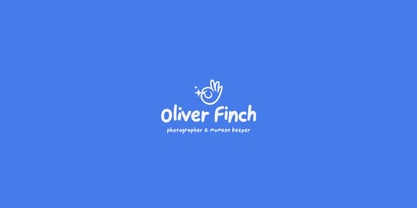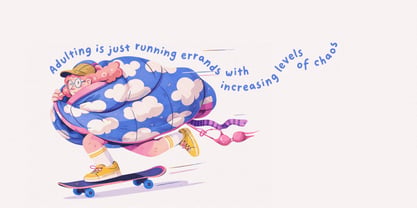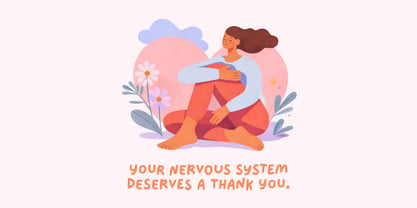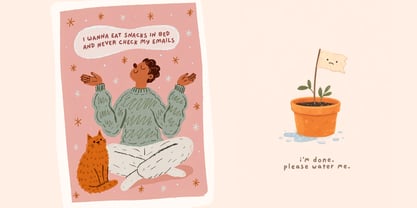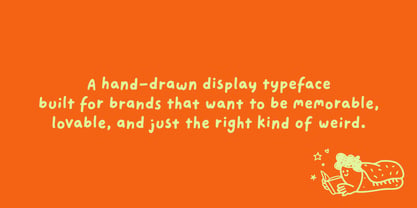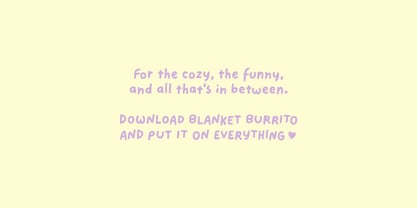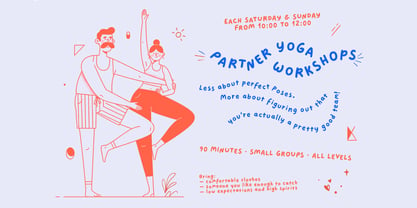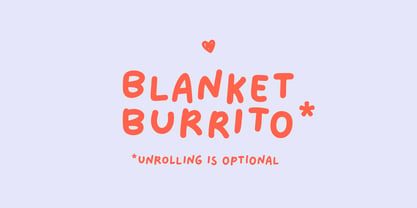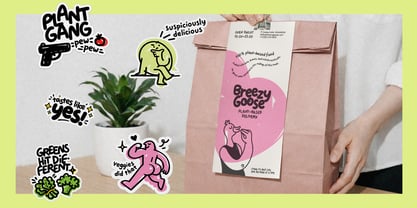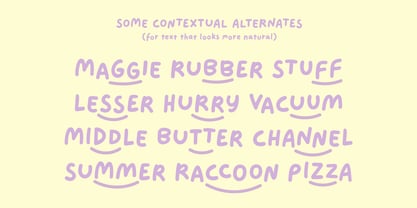
Introducing Blanket Burrito, a hand-drawn display font that embodies a playful, chunky, and cozy vibe. This font brings a unique personality to your designs, making them feel genuinely human. It's versatile enough for both humorous and heartfelt projects, often shining on the same poster. Ideal for indie food and beverage branding, sticker packs, merchandise, zine covers, mental health and wellness brands, social media content, children's products, greeting cards, and logos for cozy lifestyle brands. Compatible with Adobe Illustrator, Photoshop, InDesign, Canva (Pro), Procreate, and Microsoft Office, Blanket Burrito looks best at display sizes, so give it the space it deserves. With 559 glyphs, it supports 88 languages, ensuring broad accessibility for your creative needs. If you require a specific character not included, assistance is readily available. Full list of supported languages: Afrikaans, Albanian, Asu, Basque, Bemba, Bena, Breton, Catalan, Chiga, Colognian, Cornish, Croatian, Czech, Danish, Dutch, Embu, English, Esperanto, Estonian, Faroese, Filipino, Finnish, French, Friulian, Galician, German, Gusii, Hungarian, Icelandic, Indonesian, Irish, Italian, Kabuverdianu, Kalenjin, Kamba, Kikuyu, Kinyarwanda, Latvian, Lithuanian, Lower Sorbian, Luo, Luxembourgish, Luyia, Machame, Makhuwa-Meetto, Makonde, Malagasy, Manx, Meru, Morisyen, North Ndebele, Norwegian Bokmål, Norwegian Nynorsk, Nyankole, Oromo, Polish, Portuguese, Quechua, Romanian, Romansh, Rombo, Rundi, Rwa, Samburu, Sango, Sangu, Scottish Gaelic, Sena, Serbian, Shambala, Shona, Slovak, Slovenian, Soga, Somali, Spanish, Swahili, Swedish, Swiss German, Taita, Teso, Turkish, Upper Sorbian, Uzbek (Latin), Volapük, Vunjo, Walser, Zulu.
Blanket Burrito